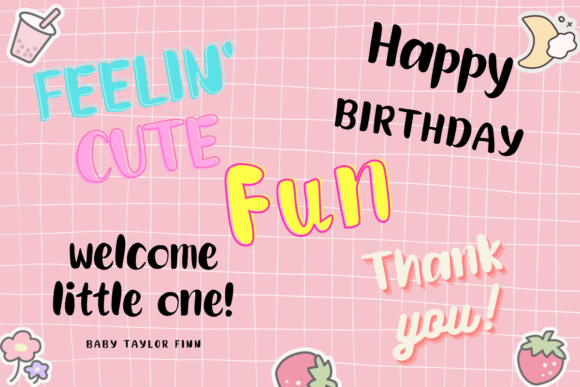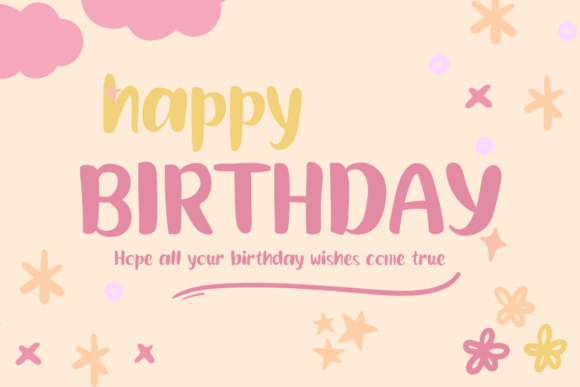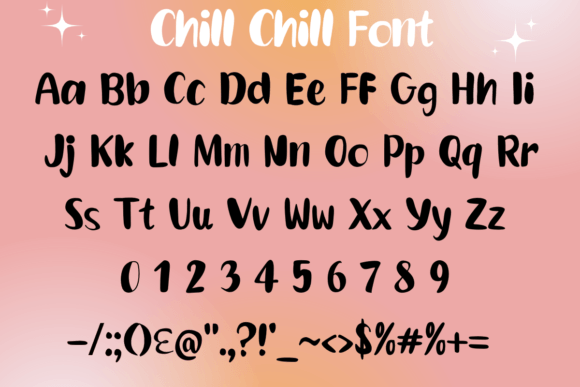
Introduction to Chill Chill Font
Chill Chill font is a sweet and friendly handwritten display font.
Cute and fun, this font is ideal for crafts,digital design,presentation or writing wedding invitation, cards,or any other design that might need a fun touch It is ideal for use in school for both teachers and students.
Key Features of Chill Chill Font
Why Choose Chill Chill Font?
Chill Chill Font offers exceptional quality and versatility, making it a valuable addition to your design toolkit. Whether you’re creating for personal projects or commercial use, Chill Chill Font delivers professional results.